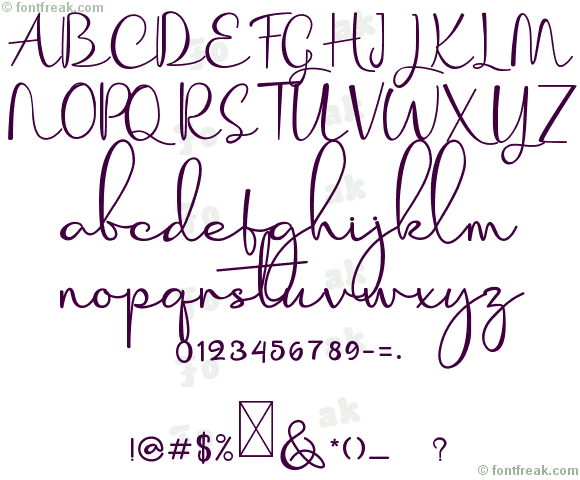
Korian
About Korian
The Korian font, designed by Eknoji Studio, is a captivating decorative typeface that beautifully blends elegance with creativity. This font stands out in the world of typography with its unique handwritten style, characterized by fluid strokes and a playful, yet sophisticated aesthetic. The balanced stroke weight and moderate contrast give it an inviting feel, making it suitable for a variety of applications. The spacing is well-considered, ensuring legibility while allowing the artistic flair of each letter to shine through.
Korian is perfect for a diverse range of use cases. Its charming design makes it an excellent choice for wedding invitations, where a touch of elegance is essential. Additionally, it works wonderfully for restaurant menus, adding a personal touch that can enhance the dining experience. Graphic designers will find Korian particularly useful for creating eye-catching promotional materials, such as posters and flyers, where a memorable impression is key. Content creators can also leverage this font for social media graphics or blogs, where it can help convey a unique brand voice.
What truly sets the Korian font apart is its ability to evoke emotion through its design. With its blend of artistic flair and practicality, this font not only enhances visual communication but also invites viewers to engage with the content on a deeper level. For those looking to enrich their designs, the Korian font free download offers a perfect opportunity to explore its delightful characteristics.